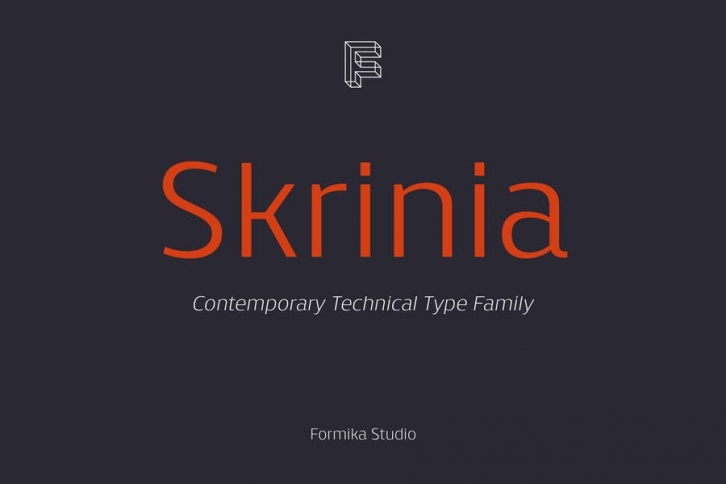
Skrinia is a contemporary technical sans family that is well suited to corporate tones branding, carefully crafted to create high quality for corporate branding and corporate type, the width is slight condensed to fit running text content as well as medium/large size voice. Skrinia consists of 16 styles from Extralight to Black, including large language support and OpenType features to play with.